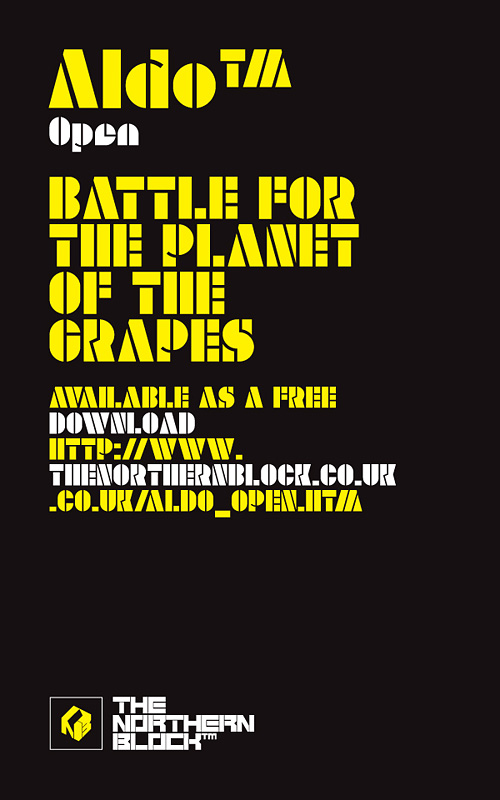
Aldo
Aldo Font
Aldo Font Family
A bold stylised typeface re-worked from the original 1970’s movie poster The Battle For The Planet Of The Apes. Aldo Open is a flexible font which can be used across a variety of graphic design content, examples include print, web, motion, t-shirts and apparel.